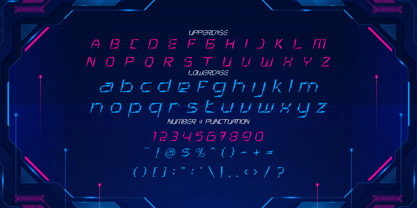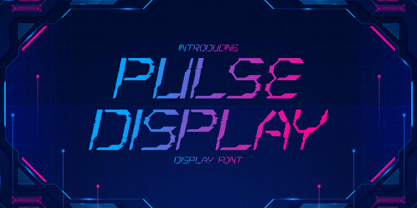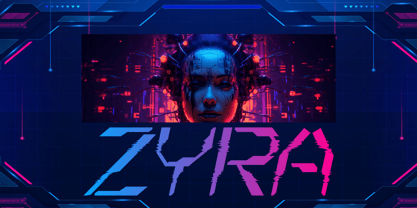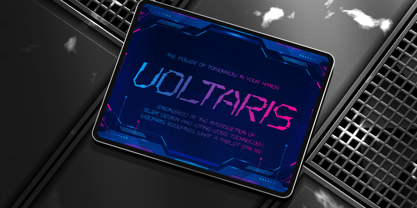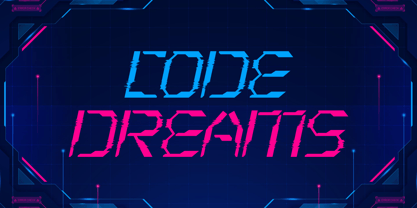
Pulse Display
by Shanaf
The Pulse Display Font Family was designed by Yesie Erma Yunita and published by Shanaf. Pulse Display contains 1 styles.
Pulse Display is a futuristic techno font infused with a digital glitch aesthetic and cyberpunk flair. Each character is constructed with angular precision, featuring pixelated breaks and electro-static distortion that mimic high-frequency tech signals. This font blends crisp, mechanical letterforms with fragmented design elements, producing a highly stylized visual perfect for digital-age storytelling. Neon gradients and sharp outlines accentuate its sci-fi energy, making it ideal for high-impact display needs.
Designed for bold headlines and immersive media, Pulse Display works seamlessly across gaming, tech startups, and film branding. From high-tech product packaging to digital posters and user interfaces, it elevates every project with a strong cyber presence. The font includes a full uppercase and lowercase set, numbers, and essential punctuation, ensuring usability and flexibility across media formats. Step into a glitchy, neon-drenched future—where Pulse Display electrifies your message with visual innovation and cutting-edge typographic rhythm.